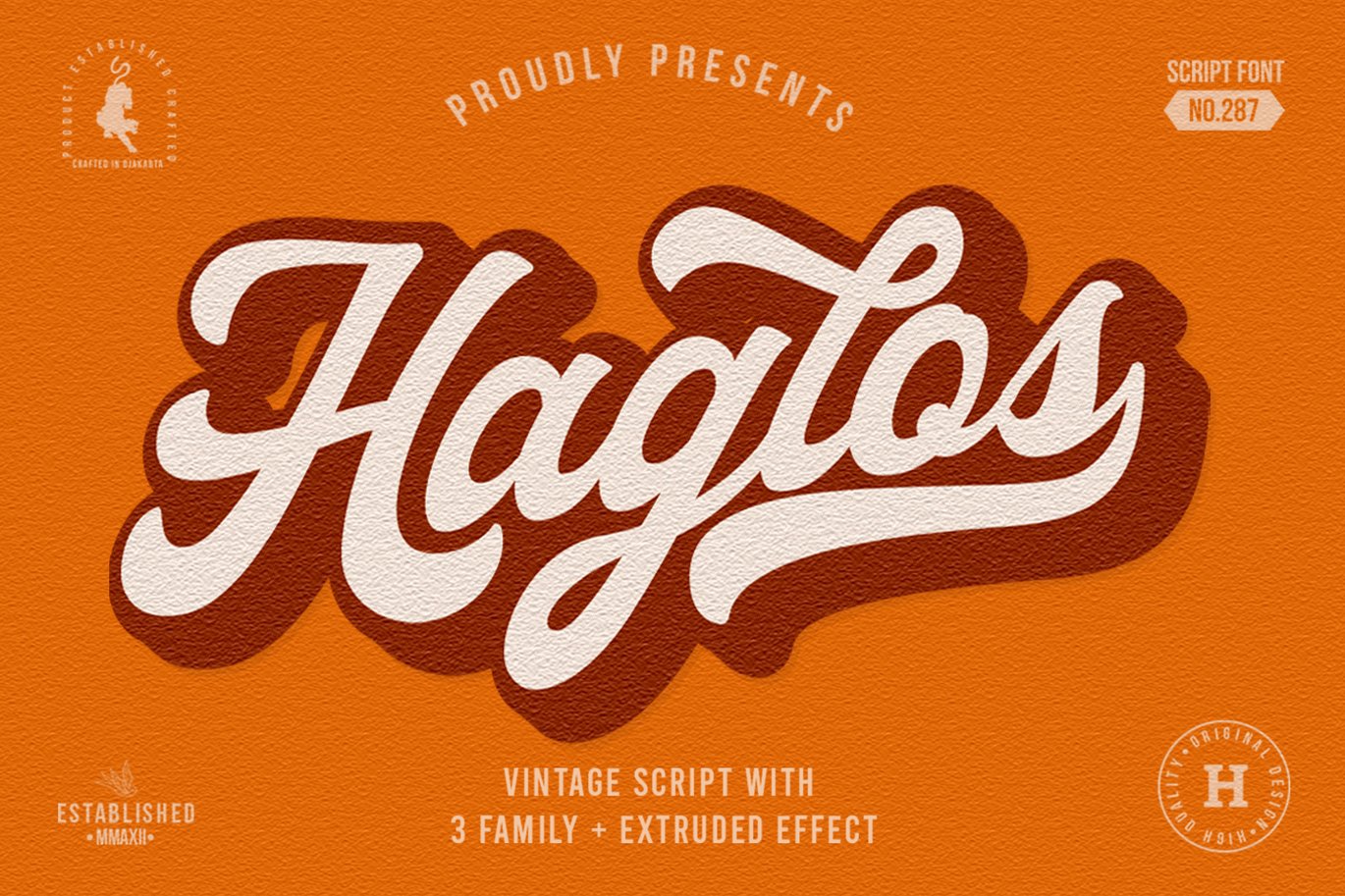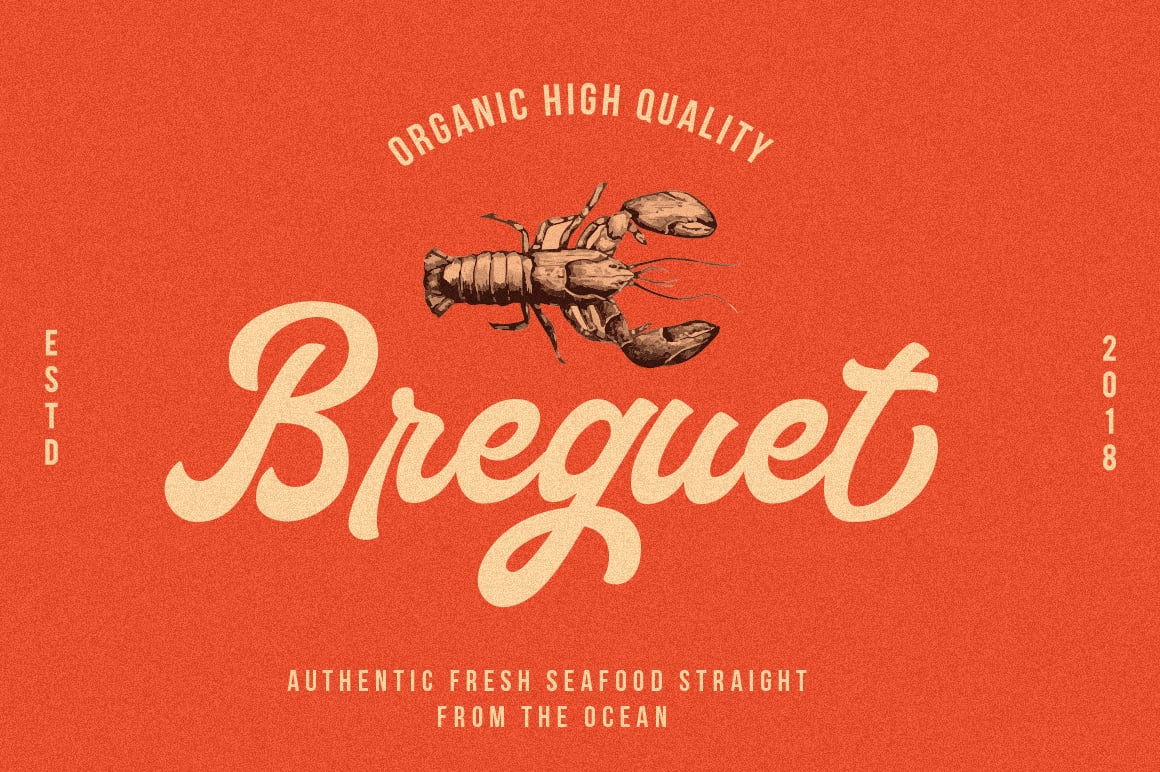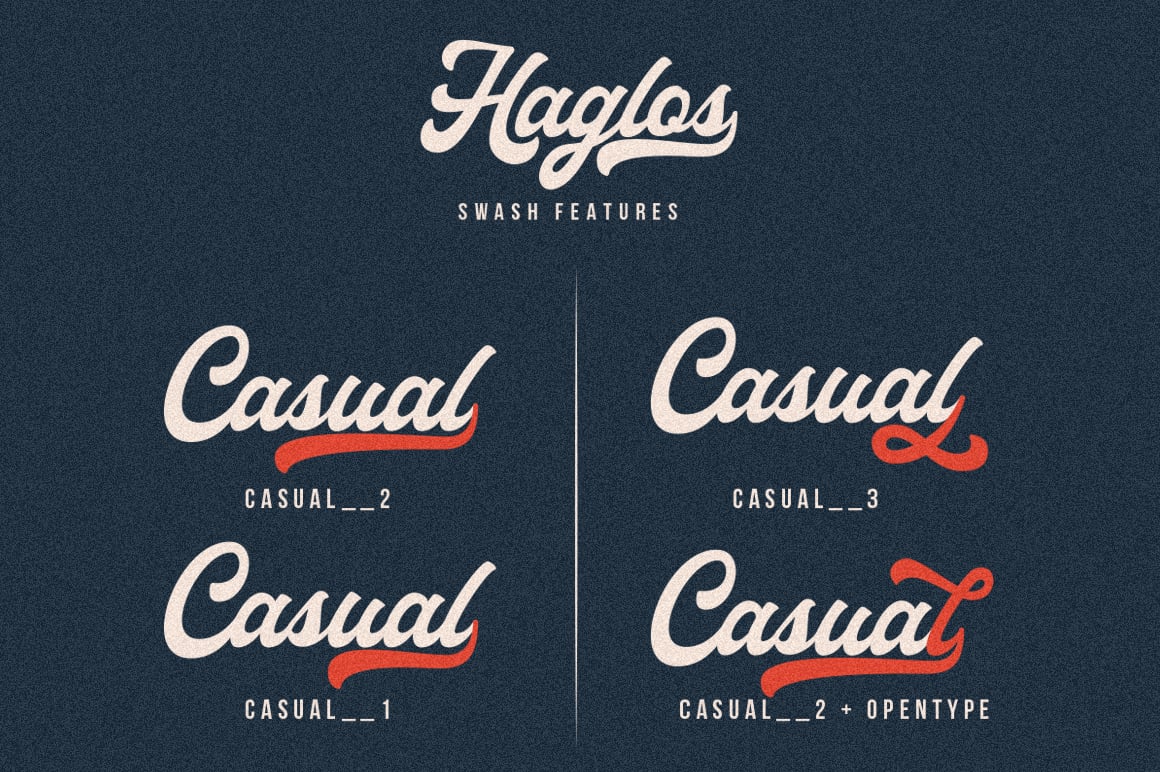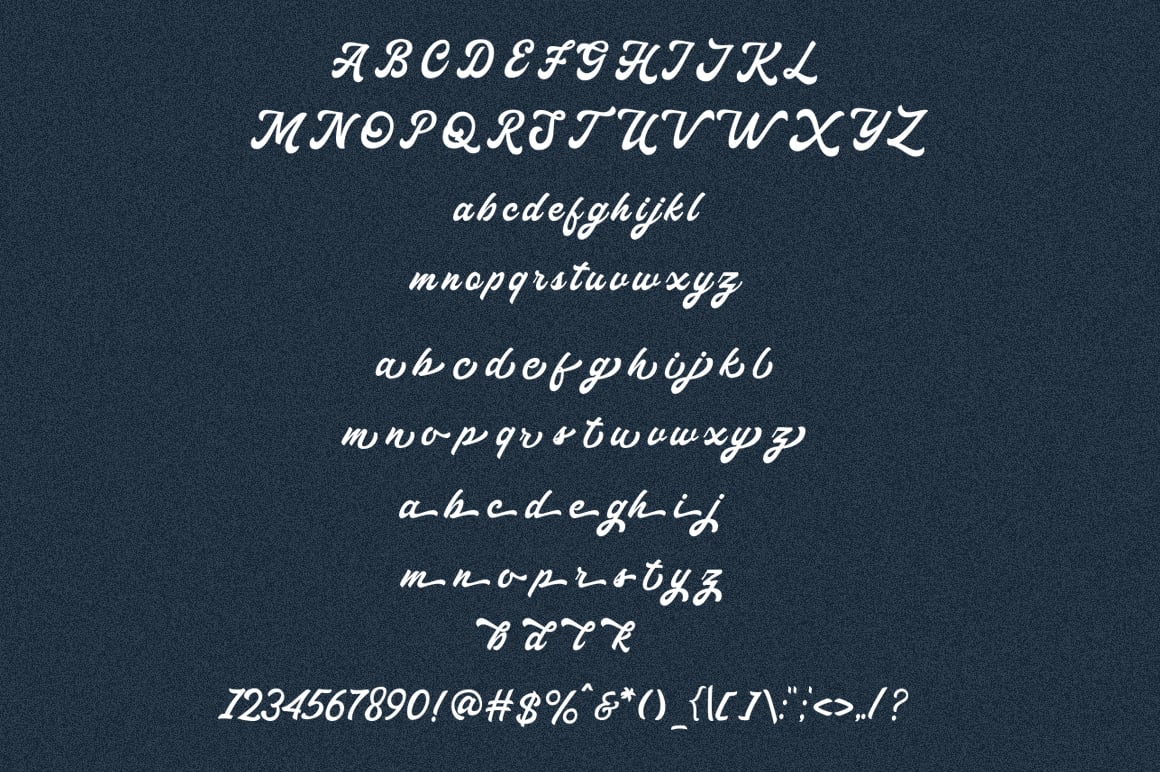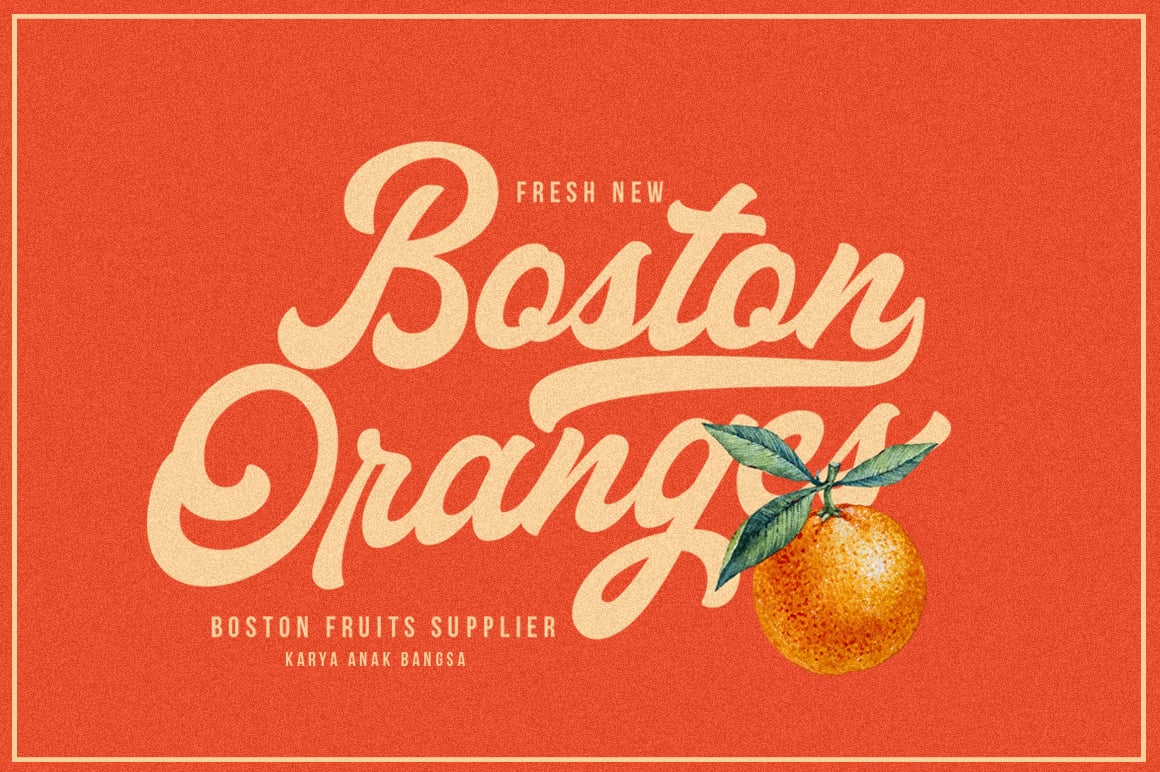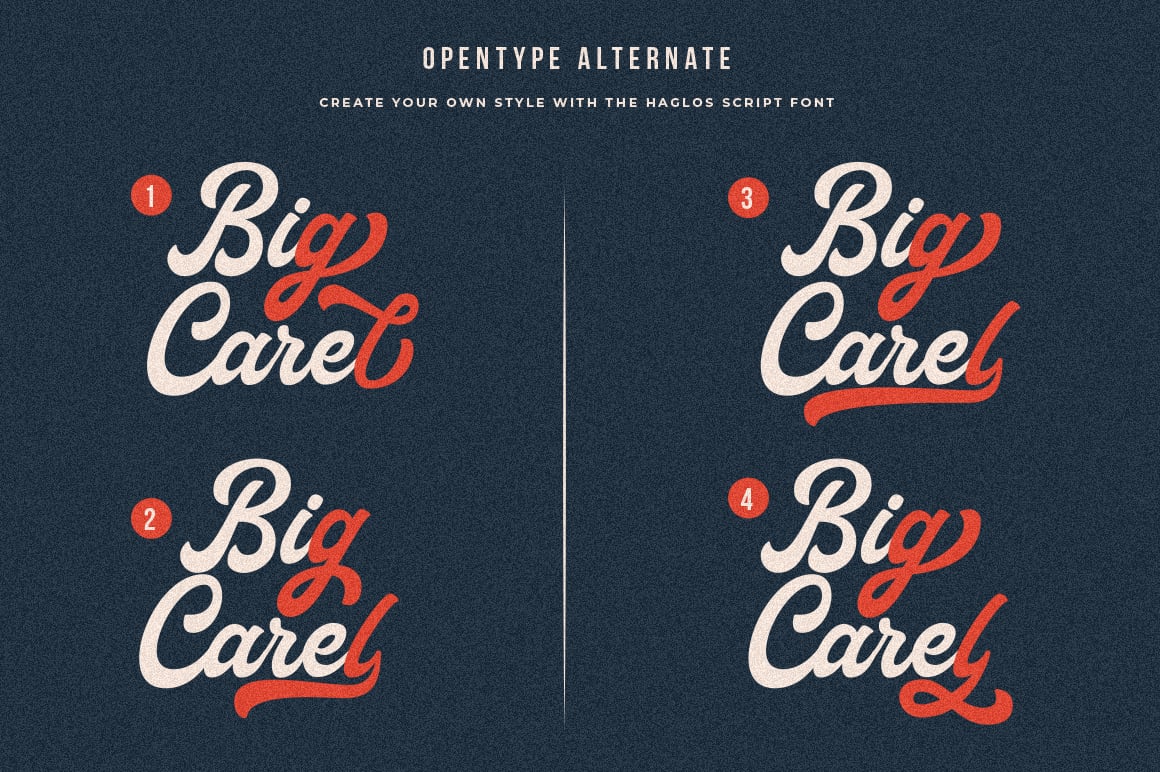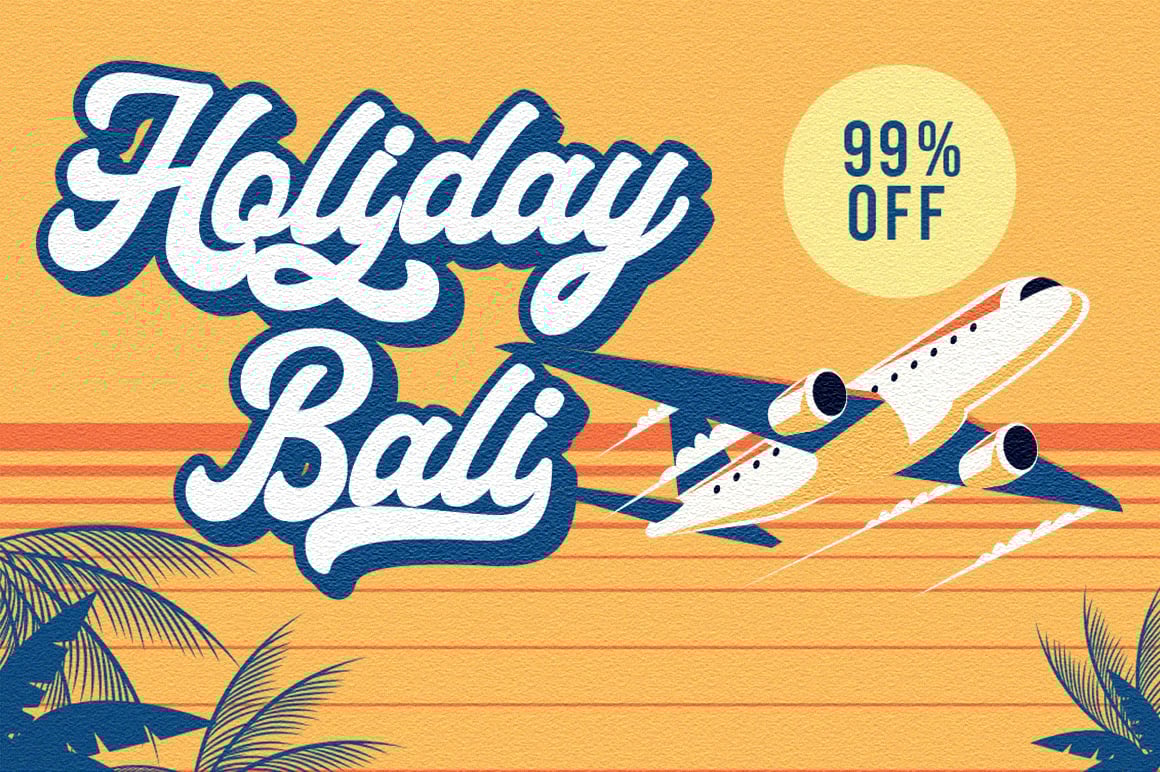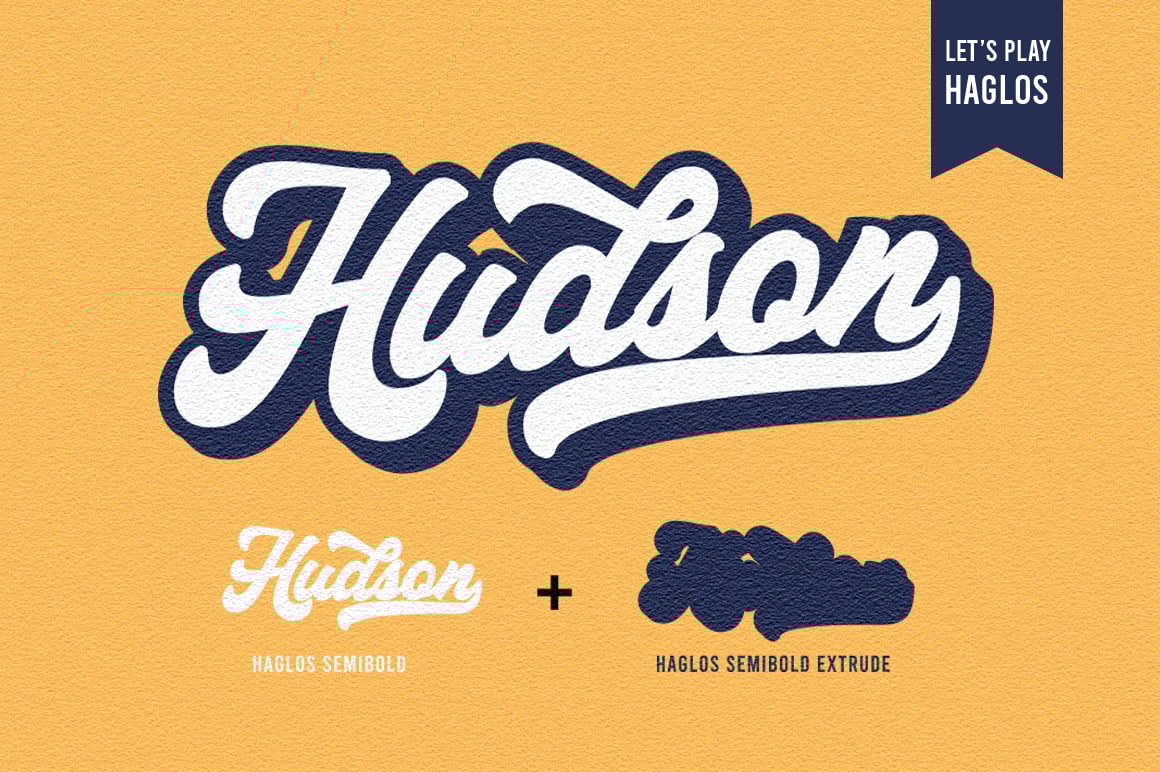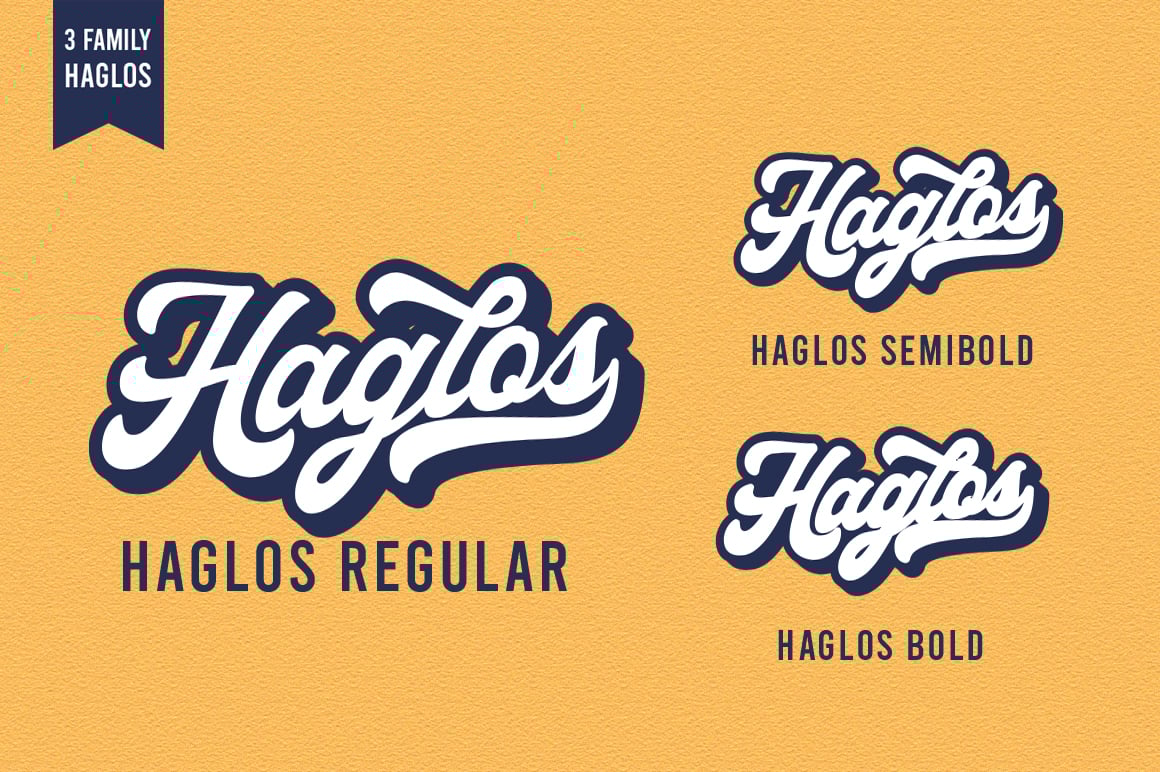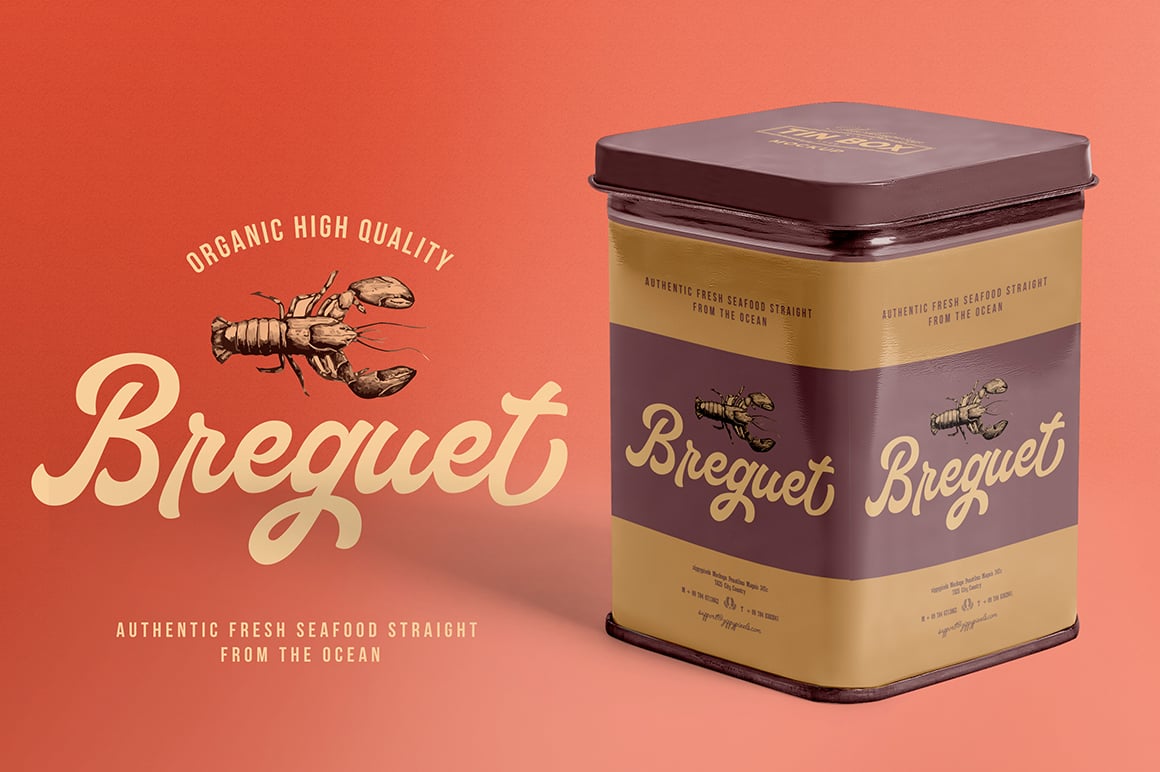
Haglos – Retro Script Font
Haglos is a bold and flowing handwritten font. This font is the perfect fit for all of your logos, branding, social media, and crafty DIY projects.
Fonts include multilingual support for; ä ö ü Ä Ö Ü ß ¿ ¡